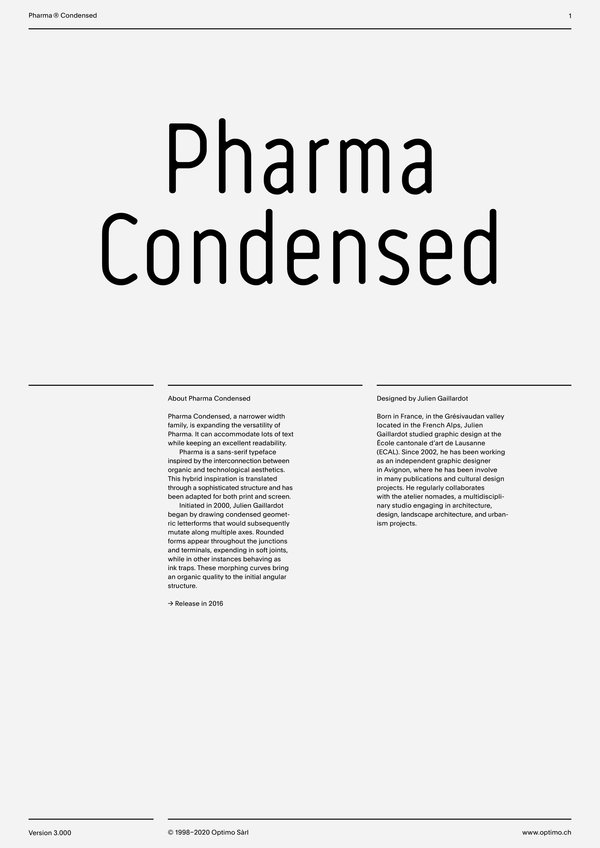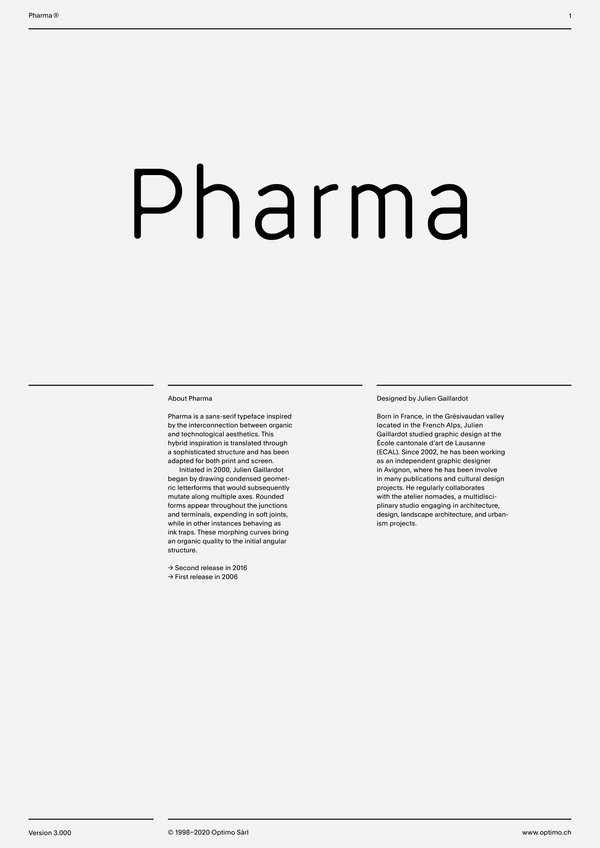
Pharma Condensed
Pharma
Case Sensitive Forms
All Caps [cpsp]
This function formats the text in uppercase and adjusts spacing between all capital letters. It also applies the ‘Case Sensitive Forms’ feature which replaces certain characters with alternates that are better suited for all capital text, especially related to punctuation.
Contextual Alternates
[calt]
This feature adapts the position of a glyph after its surrounding context. For instance, a dash placed between two uppercase letters or numbers will be replaced by an uppercase version of the dash, slightly higher. This feature is usually active by default in Adobe applications.
Contextual Alternates
[calt]
This feature adapts the position of a glyph after its surrounding context. This feature is usually active by default in Adobe applications.
Fractions
With this feature, any numbers separated by a slash will automatically turn into a fraction. To fit in fraction configuration, numerals have been designed smaller and their weights have been adjusted to suit the typeface.
This feature replaces any letter following a numeral with its matching superior letters. Spanish, Portuguese and Italian language uses the feminine and masculine ordinal indicators such as ‘a’ for for 1º, 1ª. Ordinals are designed to match the weight of the typeface.
Numerators [numr]
This feature substitutes glyphs with their matching smaller alternates. The numerators are the same glyphs that are used to create fractions, their vertical position remains within the capital letters height. These glyphs are reduced in size and designed slightly heavier to keep them consistent with the rest of the font.
This feature substitutes glyphs with their matching smaller alternates and low position glyphs. The denominators are the same glyphs that are used to create fractions, their vertical position remains within the base line. These glyphs are reduced in size and designed slightly heavier to keep them consistent with the rest of the font.
Superscript/Superiors
This feature substitutes glyphs with their matching smaller alternates which are set slightly above the height of the capital letters. These glyphs are reduced in size and designed slightly heavier to keep them consistent with the rest of the font.
Standard Ligatures
Standard Ligatures [liga]
Standard ligatures replaces a sequence of characters with a single ligature glyph, they are designed to improve kerning and readability of certain letter pairs.
Pharma is a sans-serif typeface inspired by the interconnection between organic and technological aesthetics. This hybrid inspiration is translated through a sophisticated structure and has been adapted for both print and screen.
Initiated in 2000, Julien Gaillardot began by drawing condensed geometric letterforms that would subsequently mutate along multiple axes. Rounded forms appear throughout the junctions and terminals, expending in soft joints, while in other instances behaving as ink traps. These morphing curves bring an organic quality to the initial angular structure.